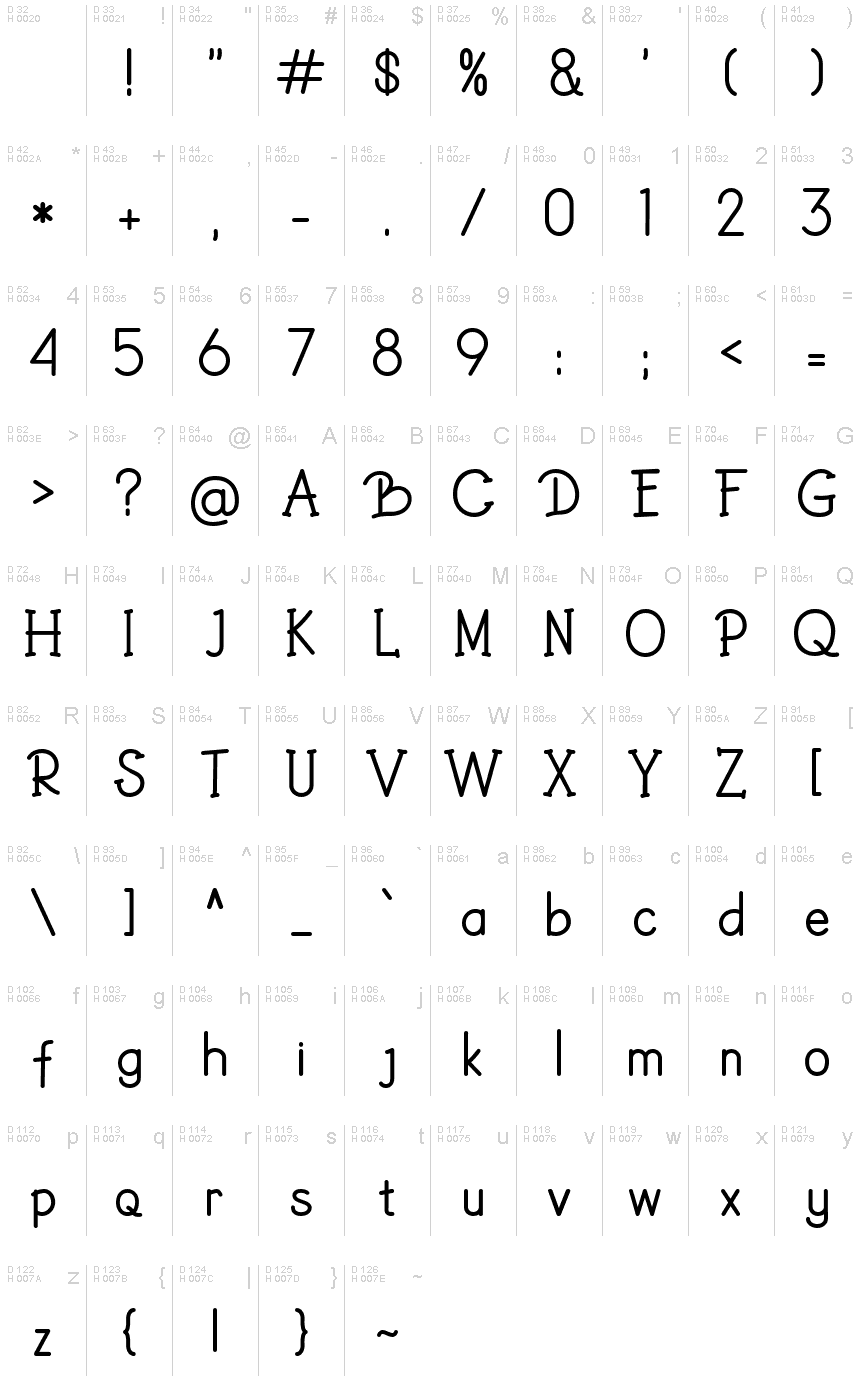
Aslam
Introducing Aslam, the perfect handwritten font for projects that demand a personal touch. Designed by Andarina, this light-weighted font is the epitome of elegance and sophistication. Aslam's stick letter design adds an edge of playfulness to your written content, making it ideal for blog titles, invitations, and social media graphics. Infuse your projects with a sense of warmth and authenticity that only a handwritten font can provide. Let Aslam elevate your brand identity with its unique style that is both refined and approachable. Try it out today and see how it transforms your creative vision into reality!